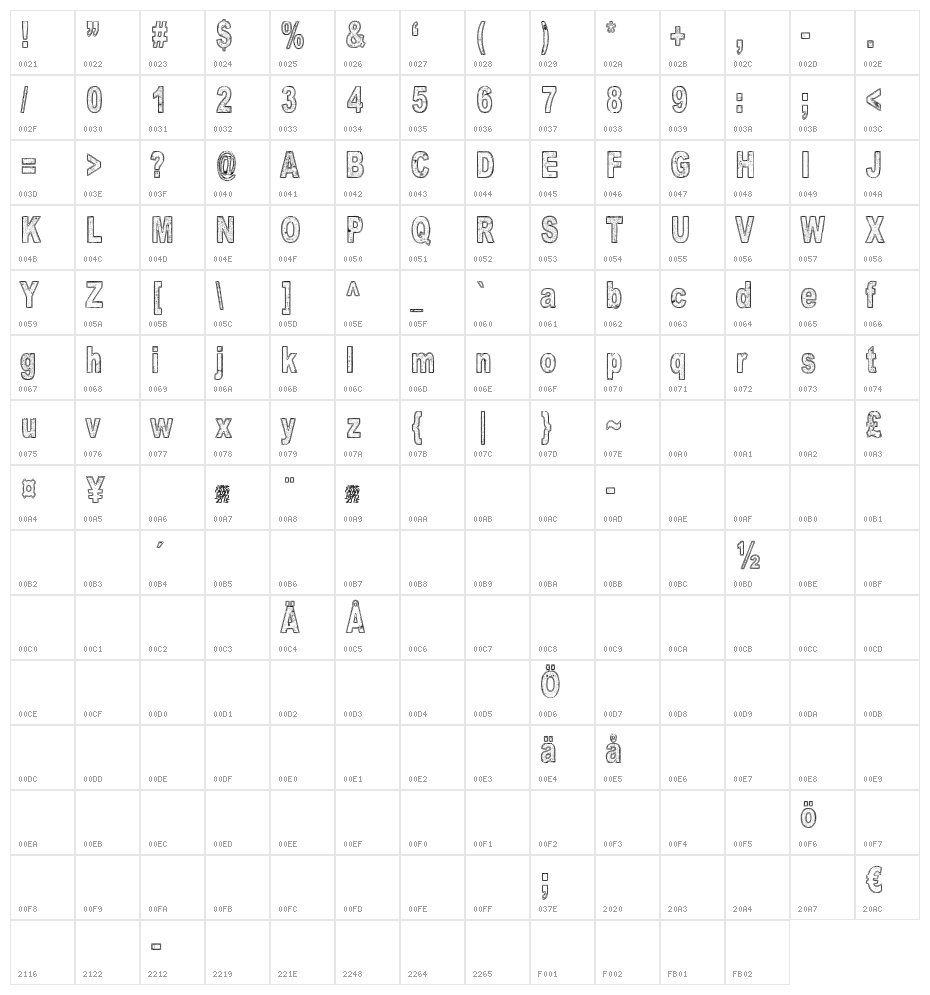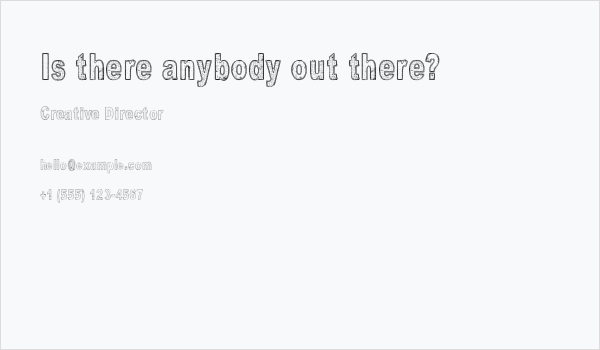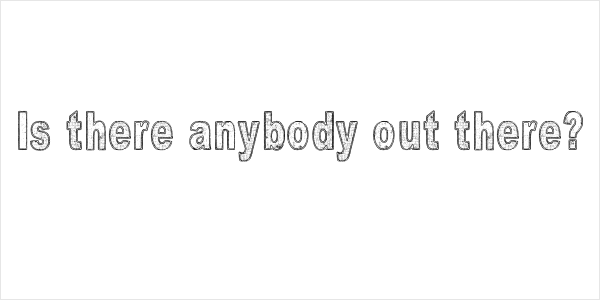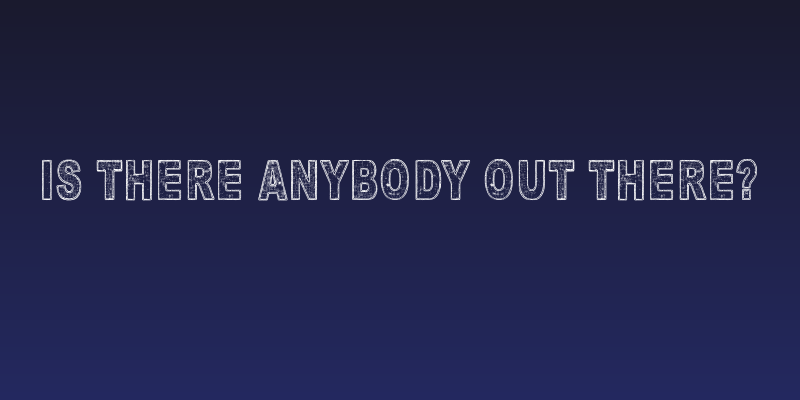
Is there anybody out there? Font
Is there anybody out there? Description
This font features a bold, textured design with a distressed, grunge-like appearance. The characters are uppercase and lowercase letters, numbers, and a variety of special symbols. Each character has a rough, uneven texture that gives it a vintage, worn-out look, reminiscent of old printing techniques or weathered signage. The font maintains a consistent weight across all characters, providing a uniform appearance despite the distressed detailing. The overall style is decorative, making it suitable for projects that require a bold statement or a retro aesthetic.
Overall StyleVintage
Proposed ProjectsIdeal for posters, album covers, vintage-themed designs, and branding that requires a bold, retro look.